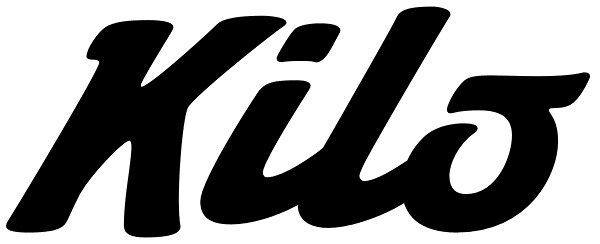
Kilo
Kilo is not only almost exactly equal to the mass of one liter of water. It also flows like one. This font has edgy caps that certainly know how to keep it together at high velocities, and vowels that grin and salute you while speeding by. Sometimes...